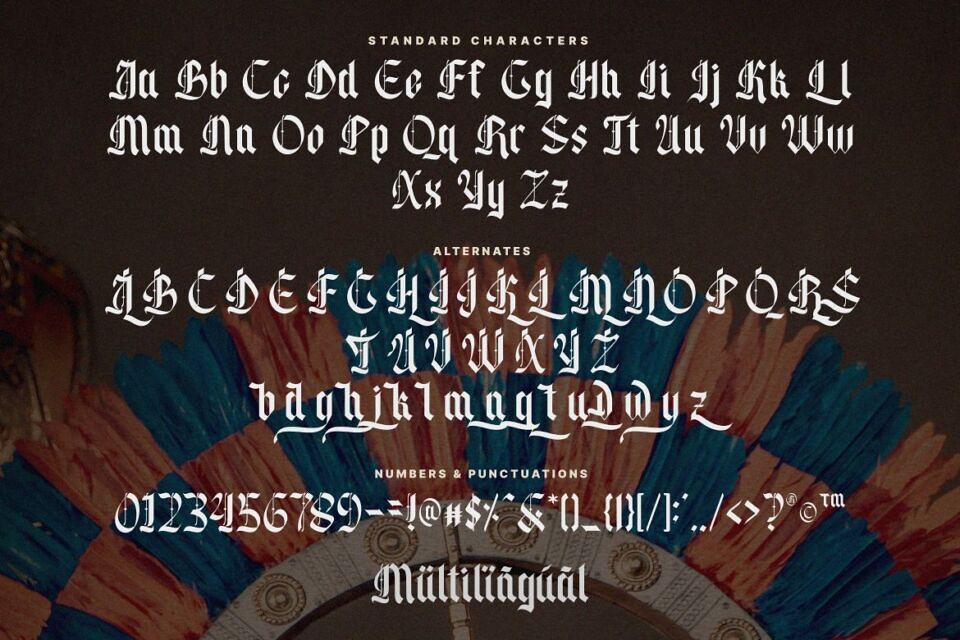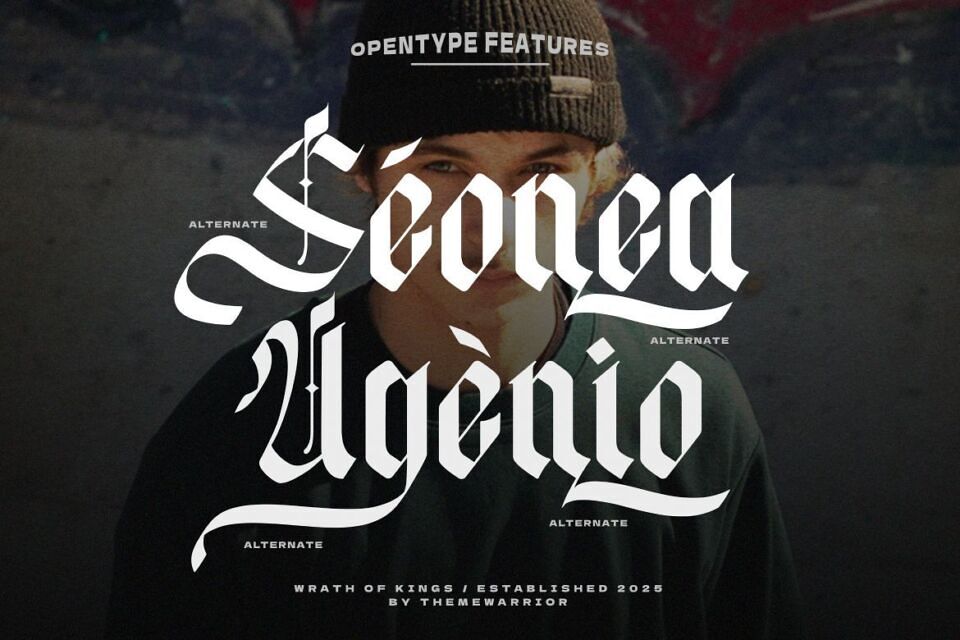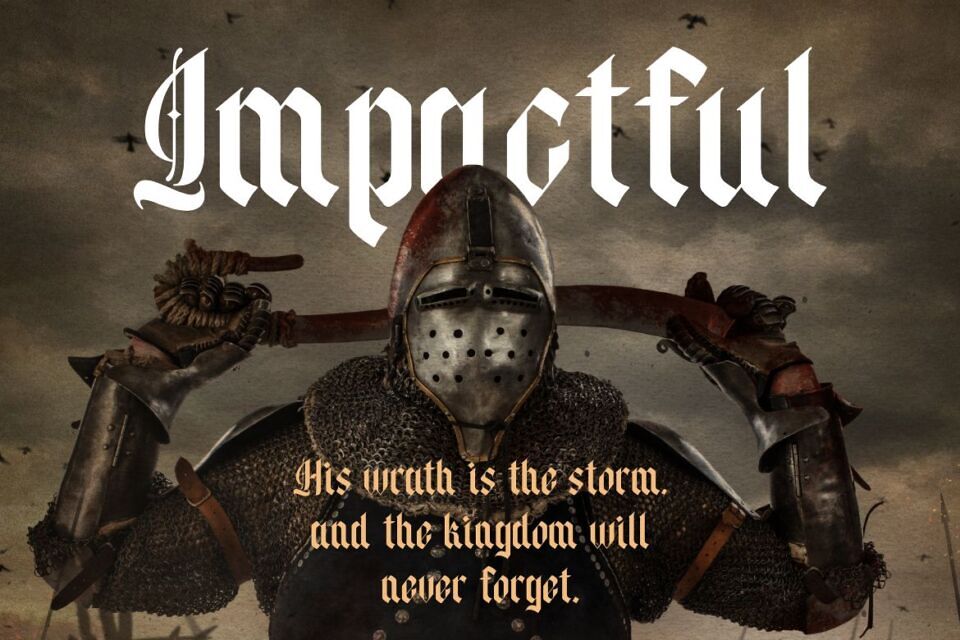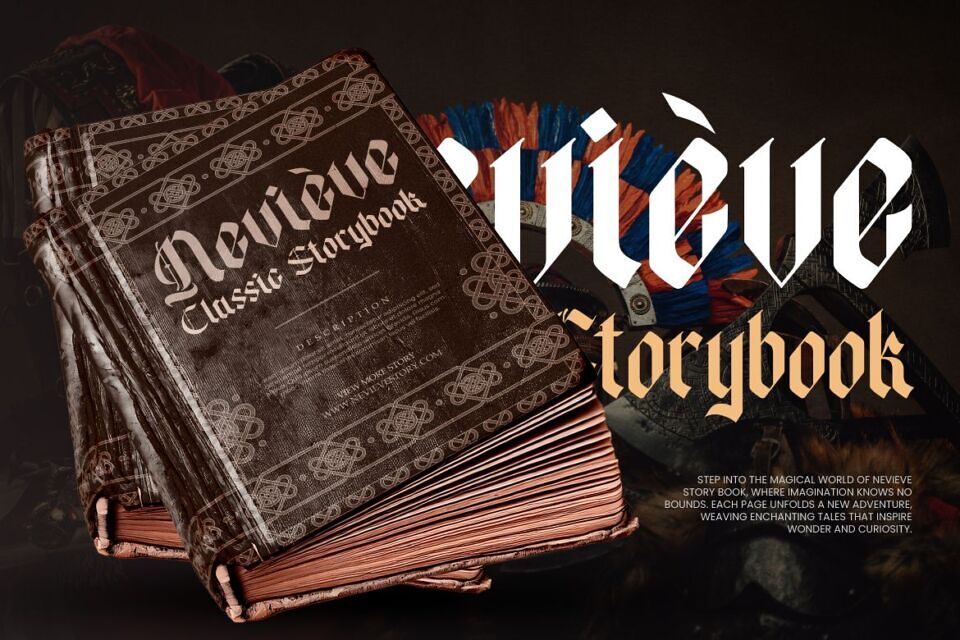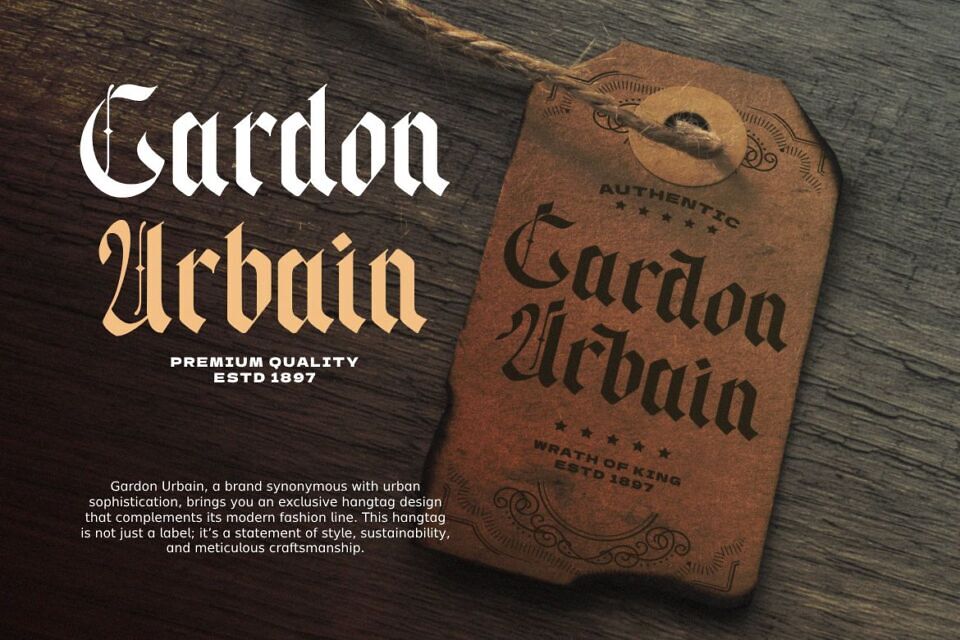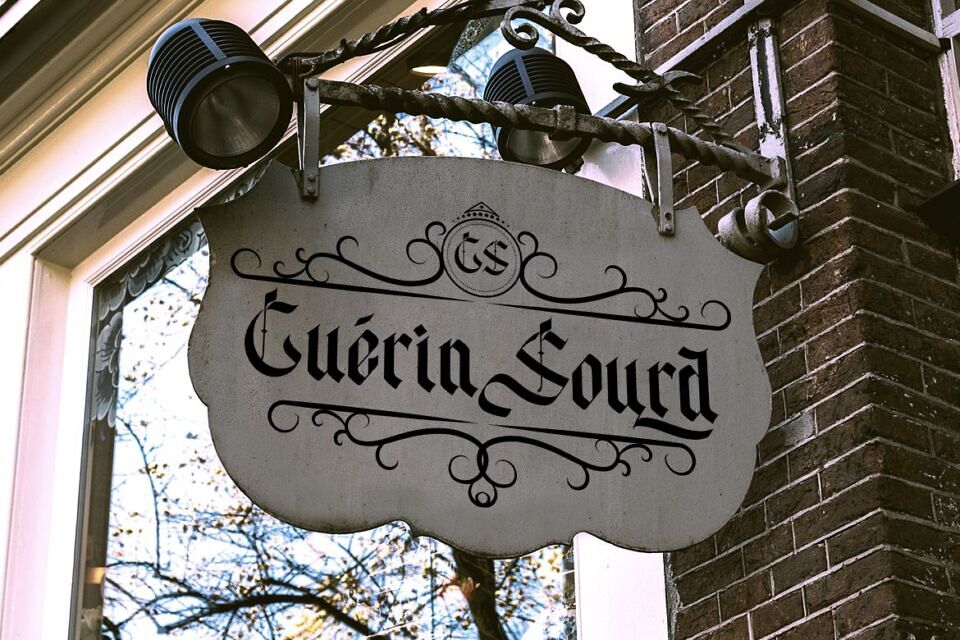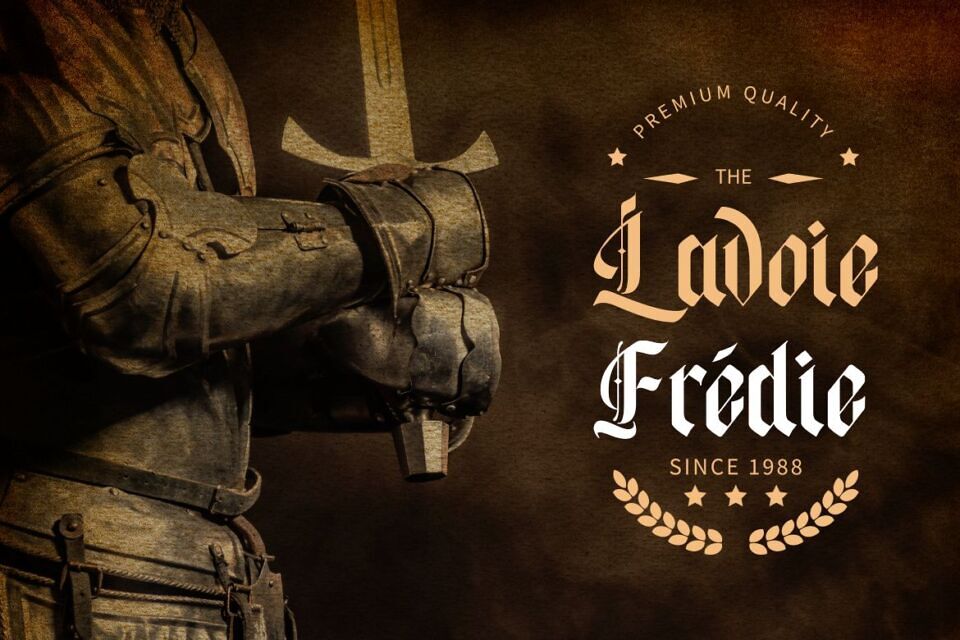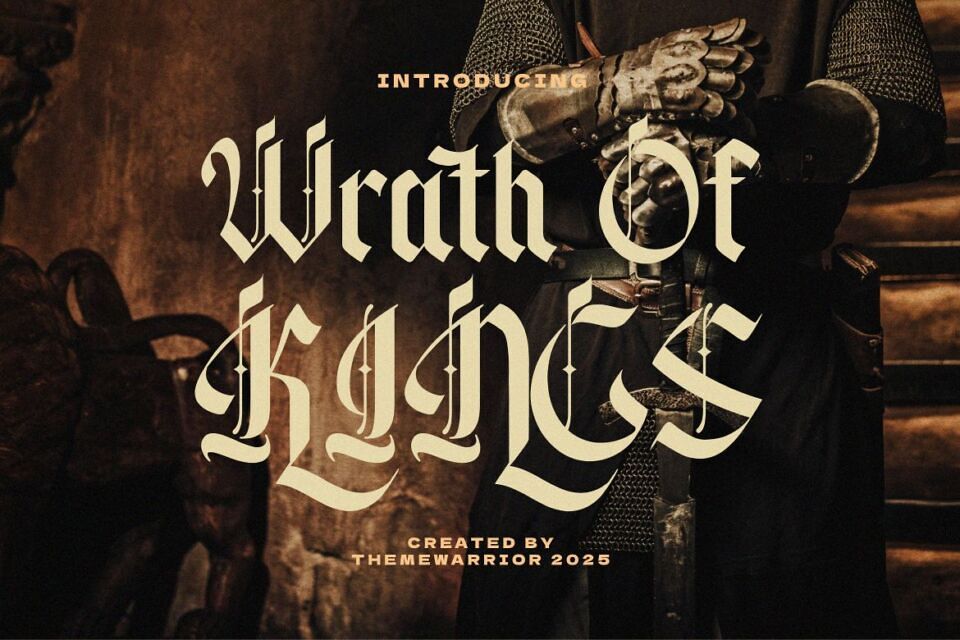
Wrath of Kings Font
Wrath of Kings is a bold blackletter font with a striking medieval look. Perfect for logos, posters, book covers, metal band logo or any design that needs a touch of old-world drama and power.